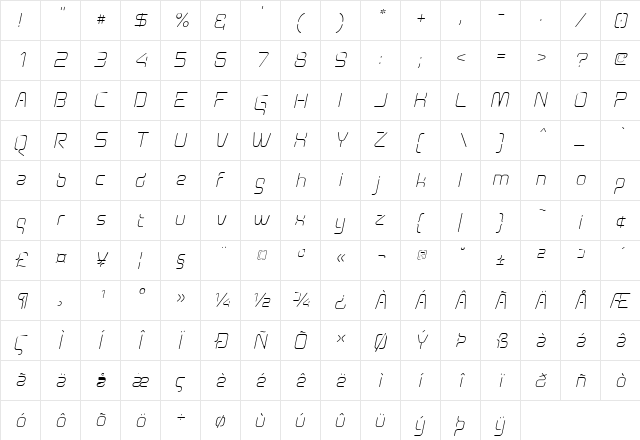
Aunchanted Thin Oblique Regular Font Preview
Design Context for Aunchanted Thin Oblique Typeface
Aunchanted Thin Oblique takes a measured approach to typography — its balanced proportions and neutral character make it a reliable workhorse for both digital and print work. Its italic angle brings a sense of urgency and motion to the letterforms. The delicate stroke weight brings airiness and refinement to layouts.